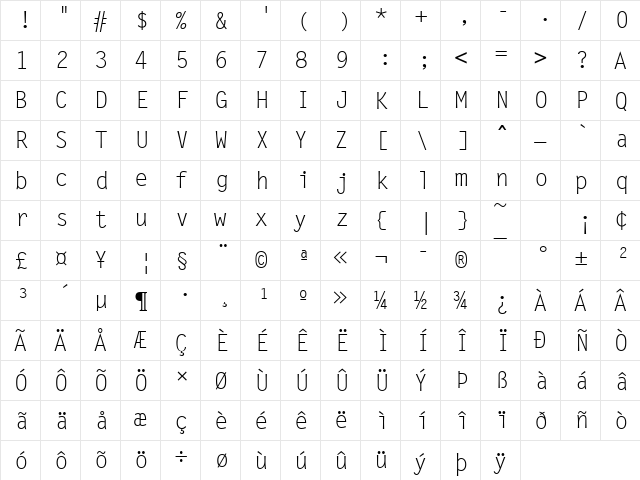
Letter Becker Regular
Design Context for Letter Becker Typeface
Letter Becker is a composed and adaptable typeface that performs quietly and consistently across a wide range of design contexts.